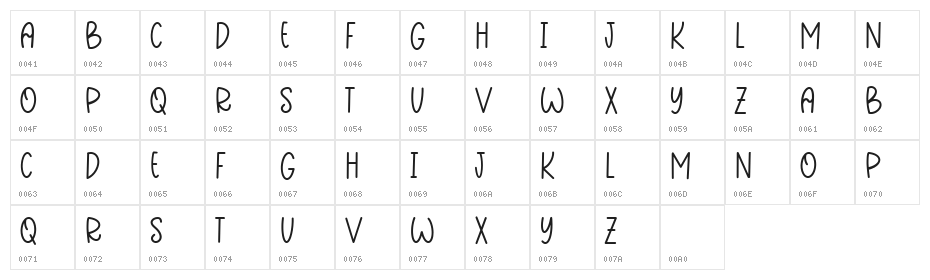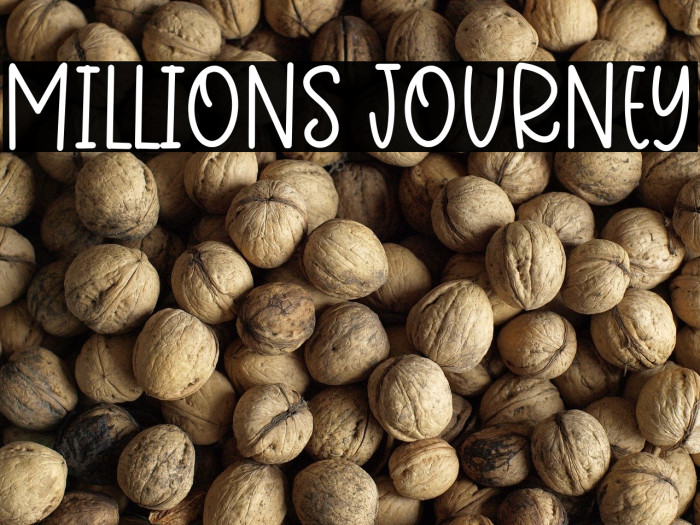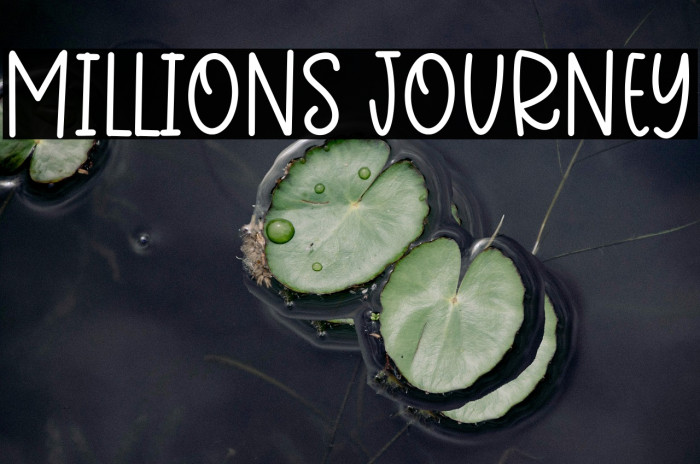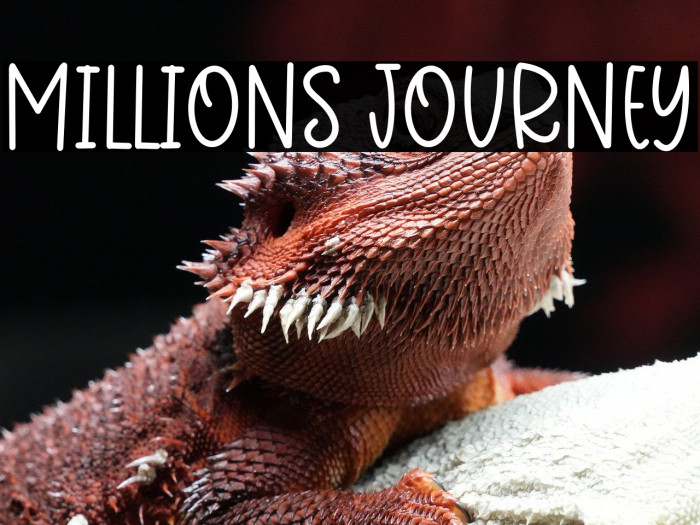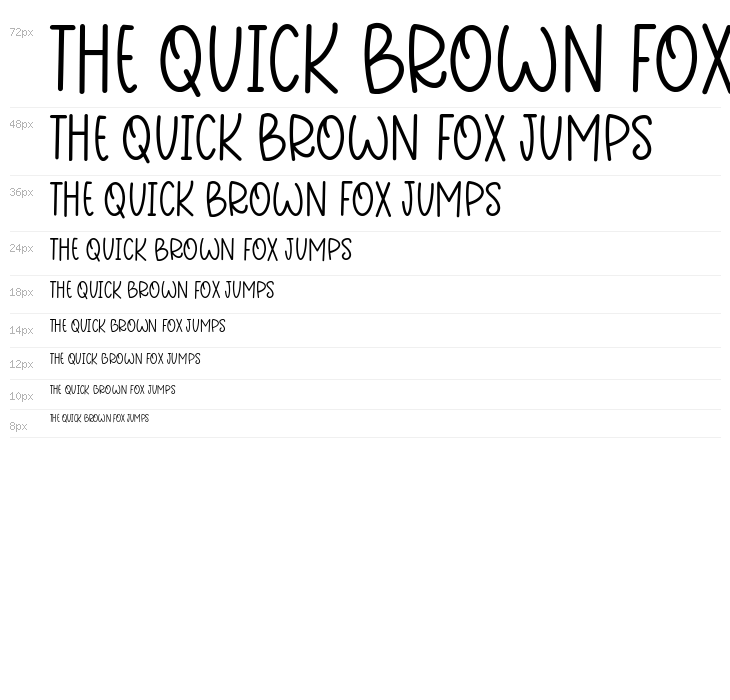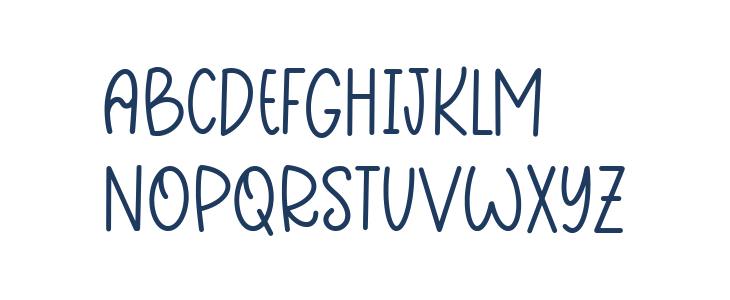
Millions Journey Font
Millions Journey Description
This font features a playful and casual handwritten style, characterized by its smooth curves and rounded edges. The letters are uniformly spaced, providing a clean and approachable appearance. The uppercase letters maintain a consistent height, while the lowercase letters exhibit a slight variation in size, adding to the font's informal charm. The numerals and special characters are designed to match the overall aesthetic, ensuring a cohesive look across all text. This font is versatile, suitable for a variety of creative projects that require a friendly and inviting tone.
| Use Case | Headlines, Logos, Social media |
| Proposed Projects | Ideal for greeting cards, children's books, casual branding, and social media graphics. |